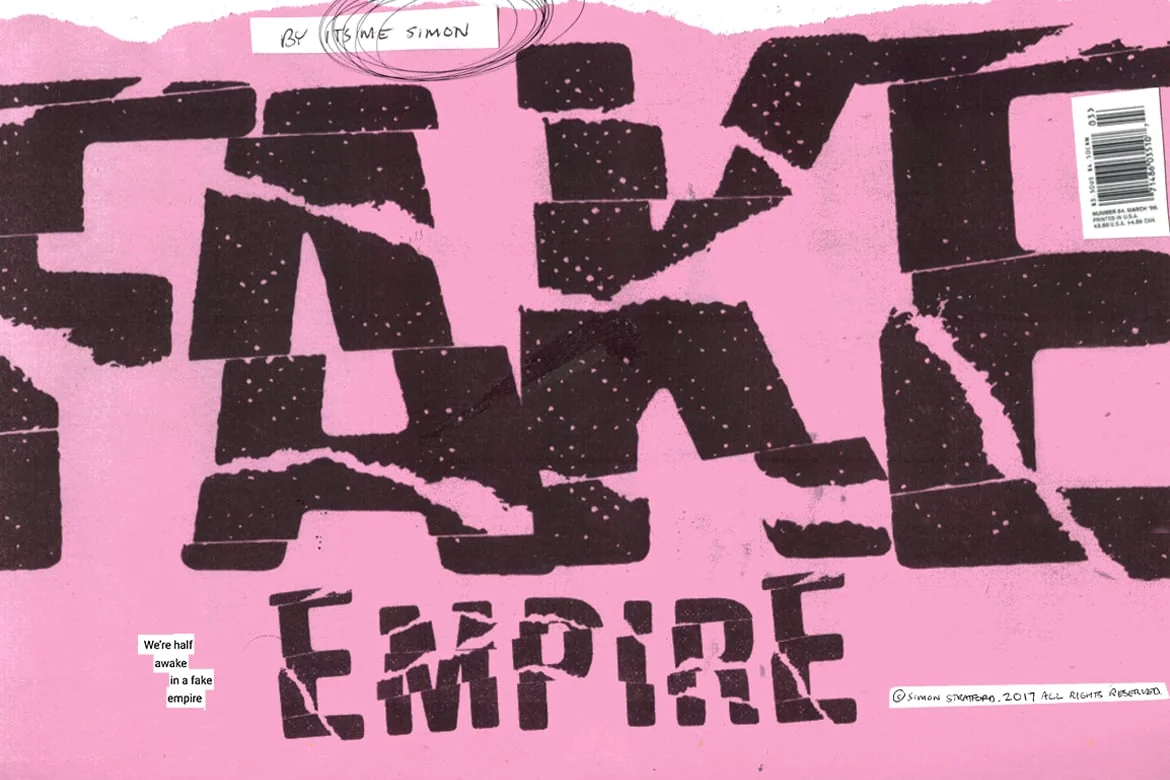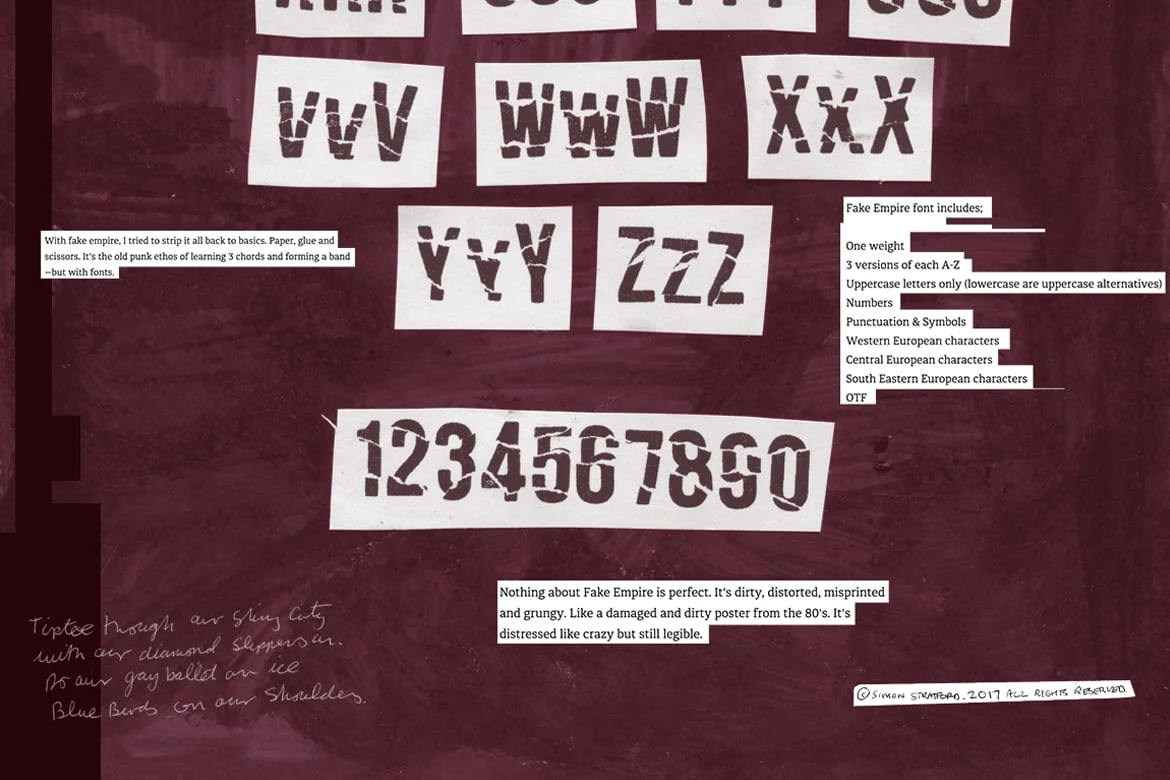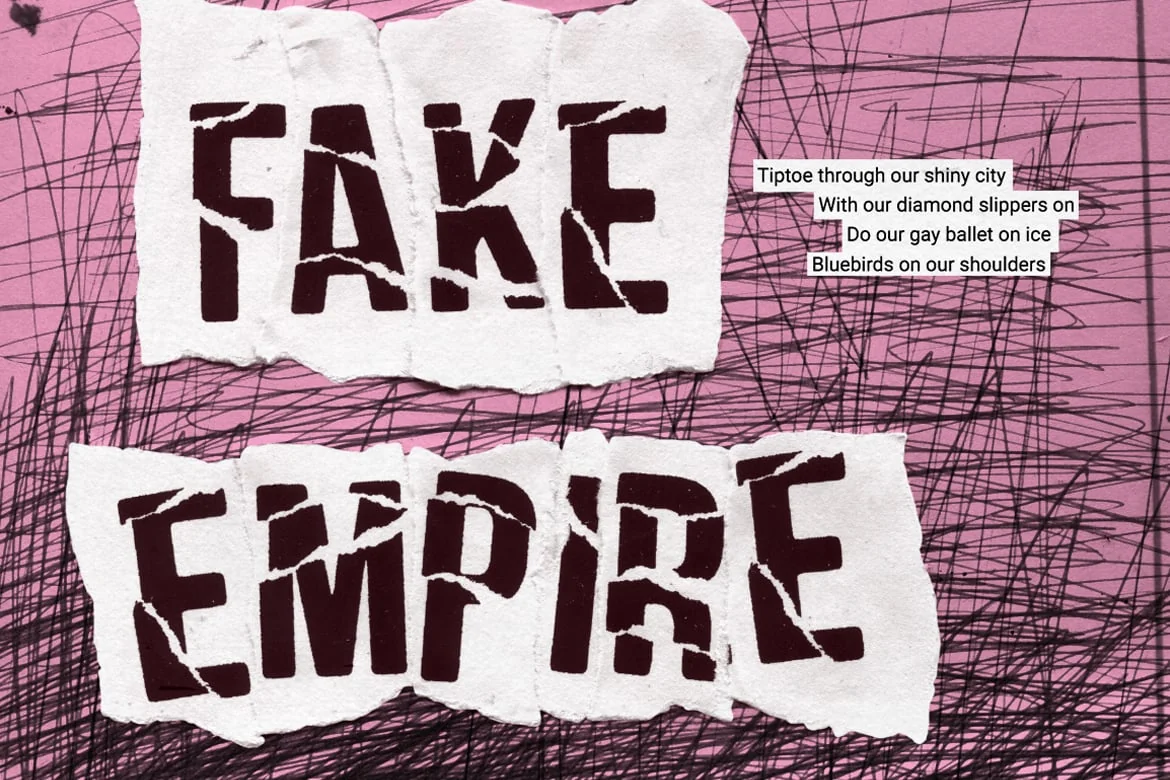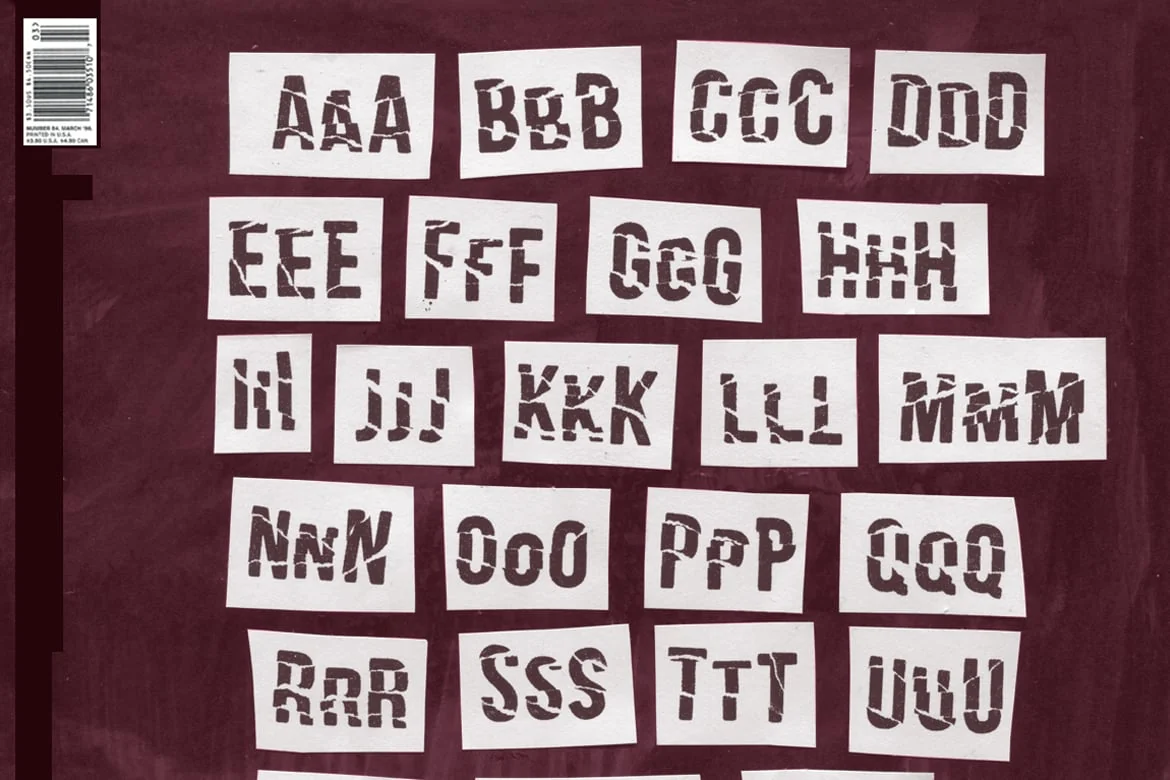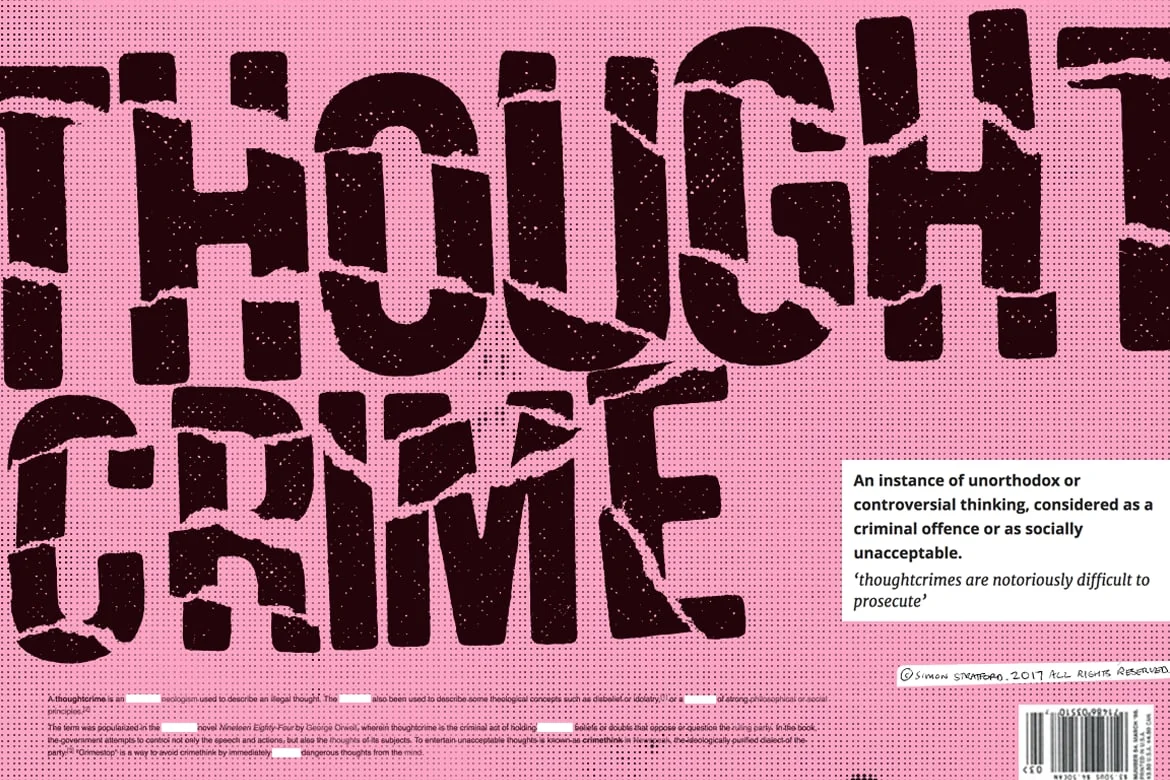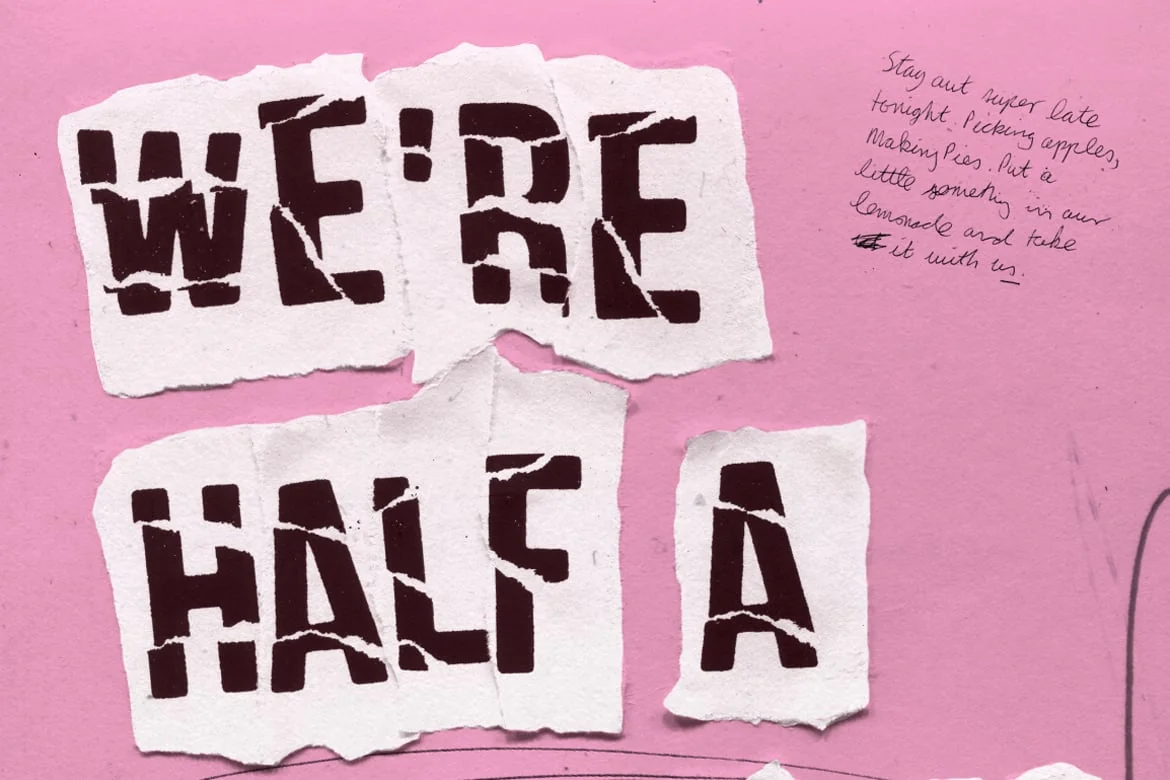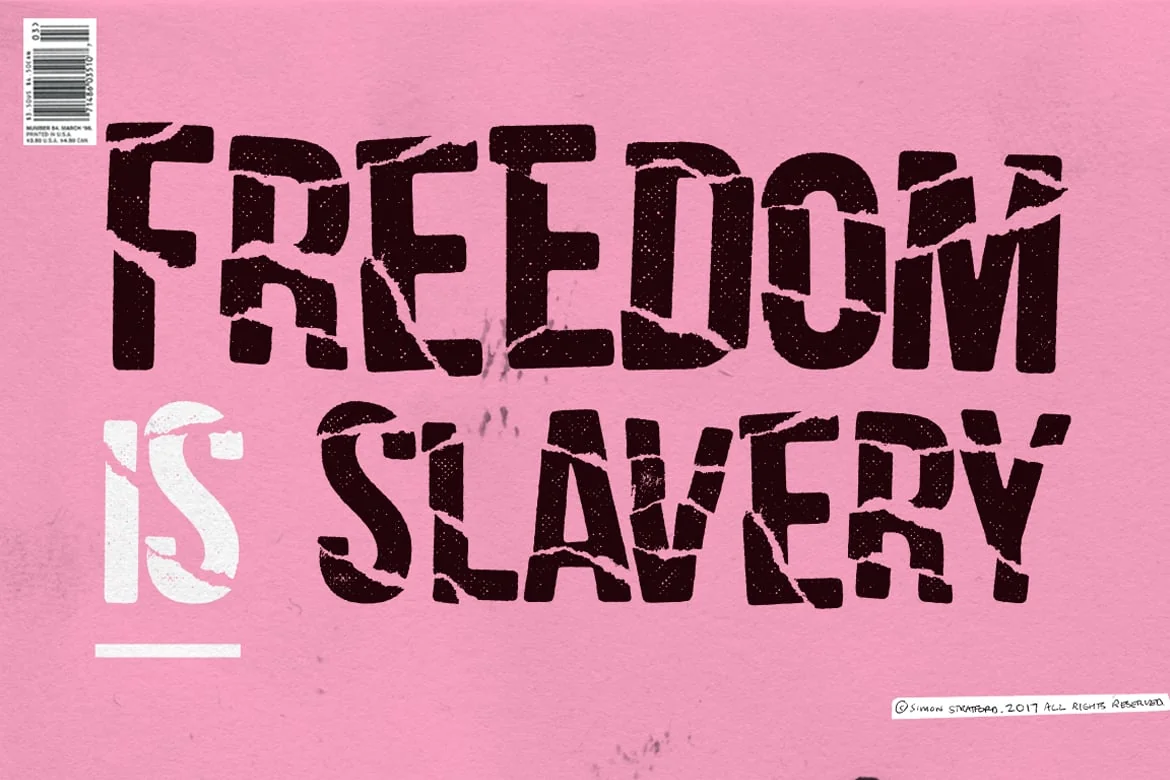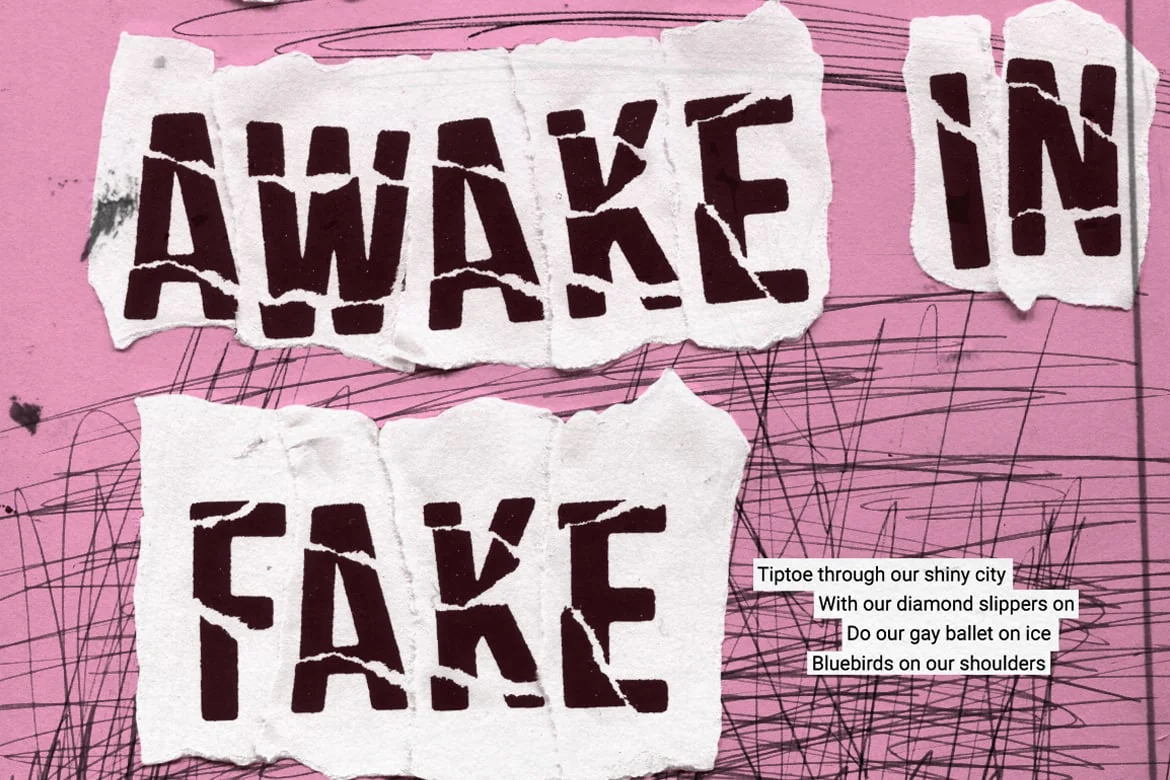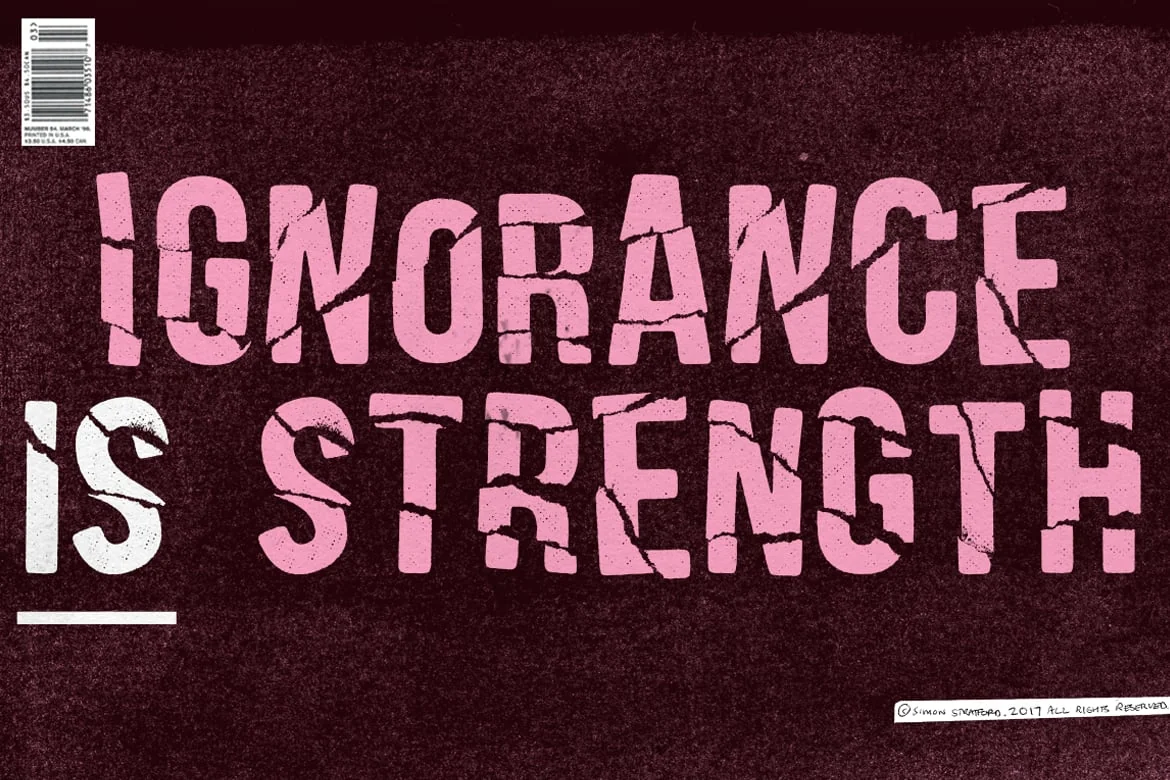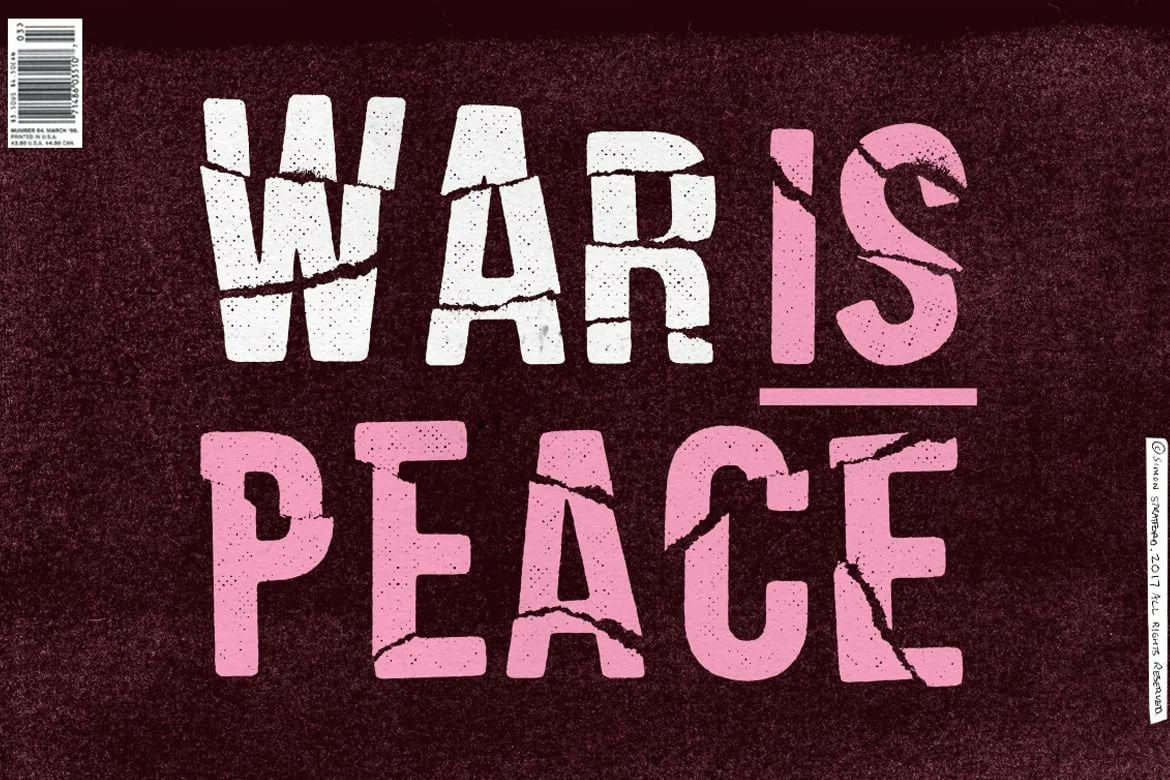
Fake Empire Font
A man far cleverer than me once said that we strive for excellence when mediocrity will do.
That pretty much sums up my new font called Fake Empire.
Using nothing more than paper, glue and scissors, I’ve stripped it back to the basics—getting my hands dirty in the process.
Fake Empire is not perfect. It’s faulty, flawed and defective. It celebrates the fact that its crude, dirty and damaged goods.
The font is highly detailed and is best suited for headlines and display.
Fake Empire font includes;
- One weight
- 3 versions of each A-Z
- Uppercase letters only
- Punctuation & Symbols
- Western European characters
- Central European characters
- South Eastern European characters